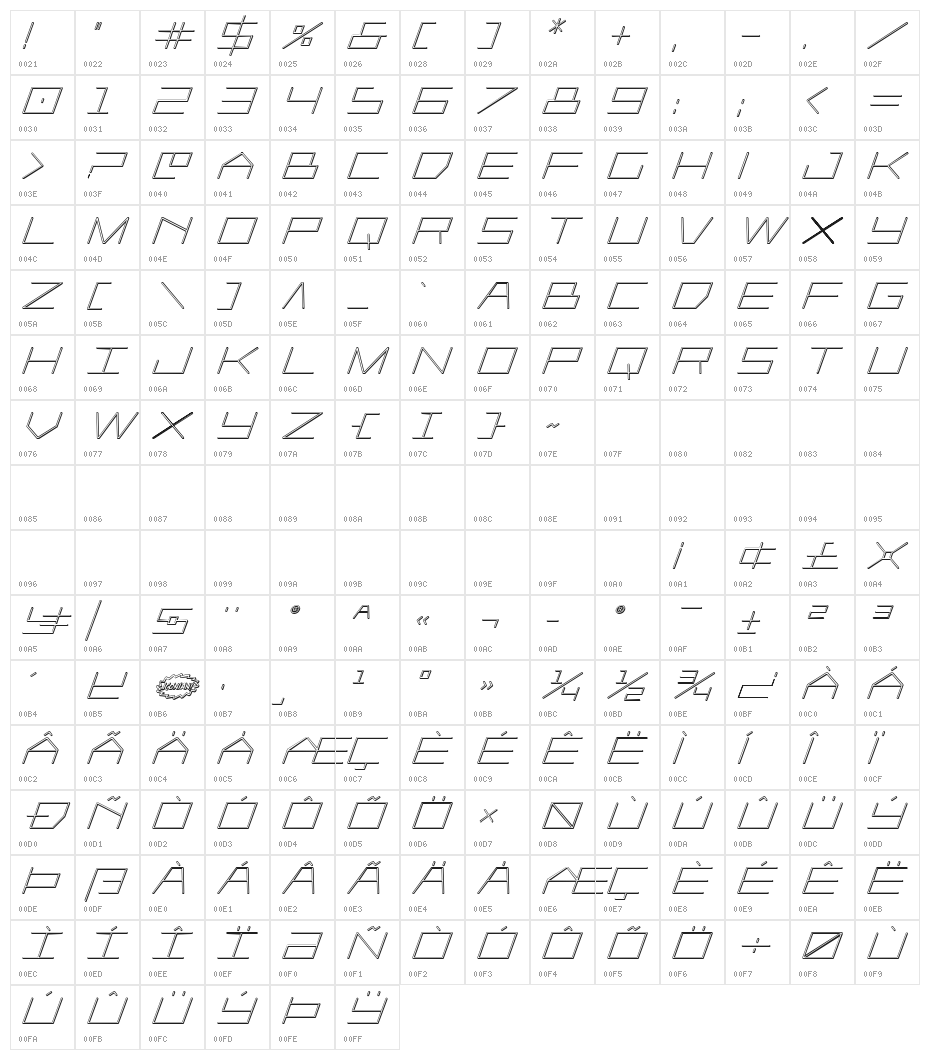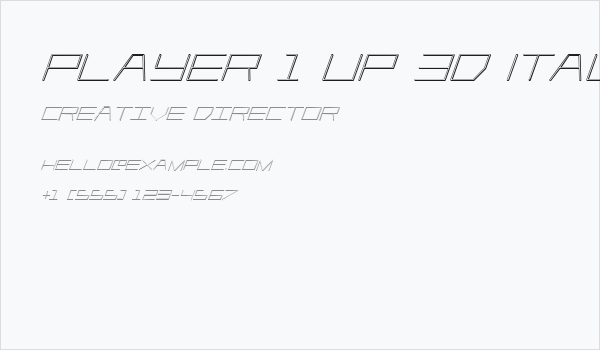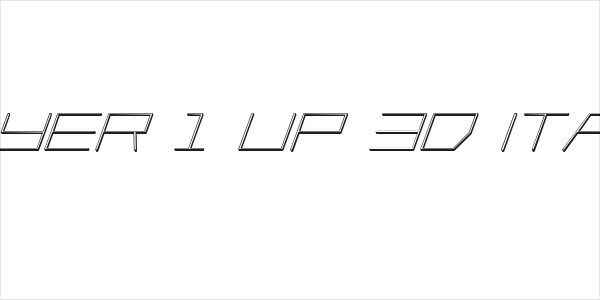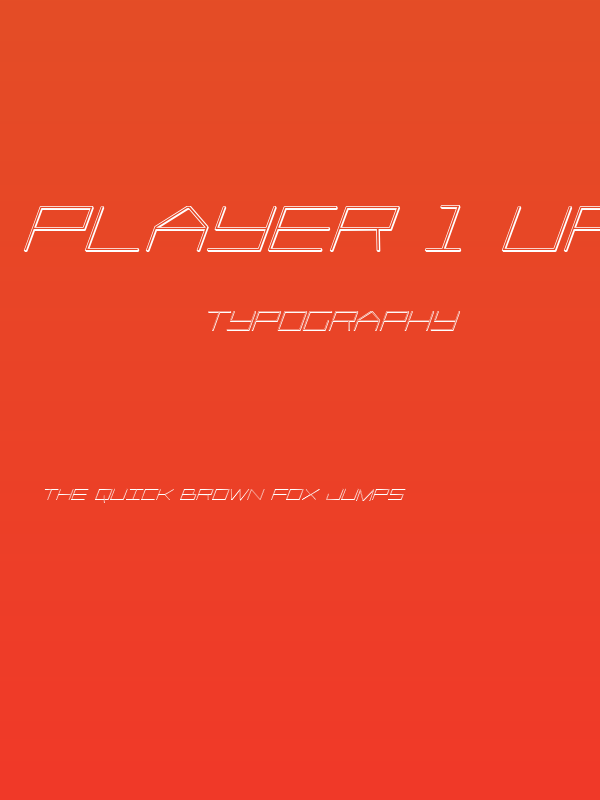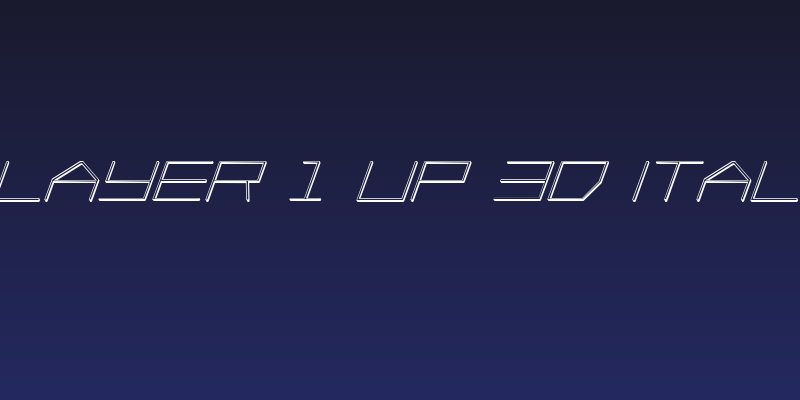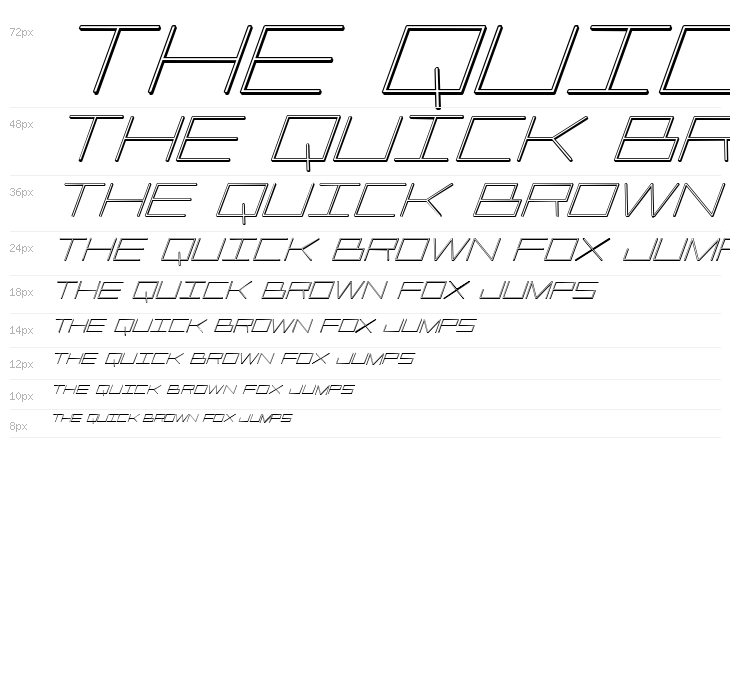
Player 1 Up 3D Italic Font
Player 1 Up 3D Italic Description
This font features a futuristic, geometric design with a 3D effect that gives it a dynamic and modern appearance. The characters are outlined, creating a sense of depth and movement. The italic slant adds to its sleek and forward-thinking style, making it ideal for projects that require a tech-savvy or digital aesthetic. The uppercase and lowercase letters maintain a consistent style, with angular lines and sharp edges. The numerals and special characters follow the same design principles, ensuring a cohesive look across all text elements.
| Proposed Projects | Ideal for video game titles, tech branding, digital interfaces, and sci-fi themed designs. |